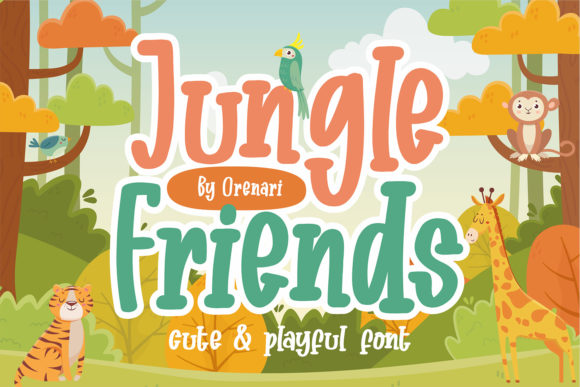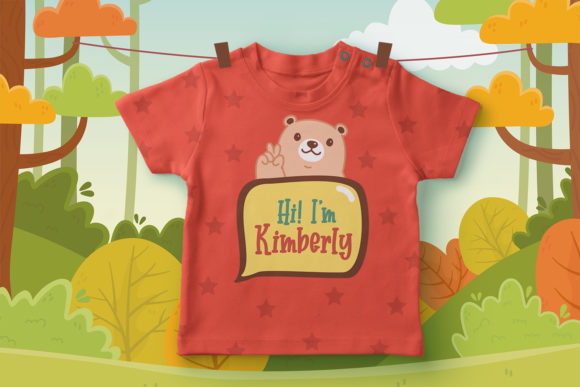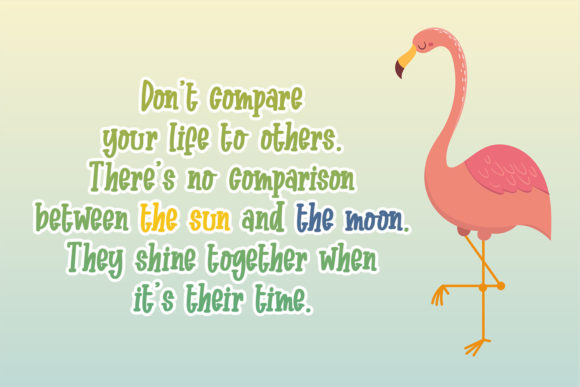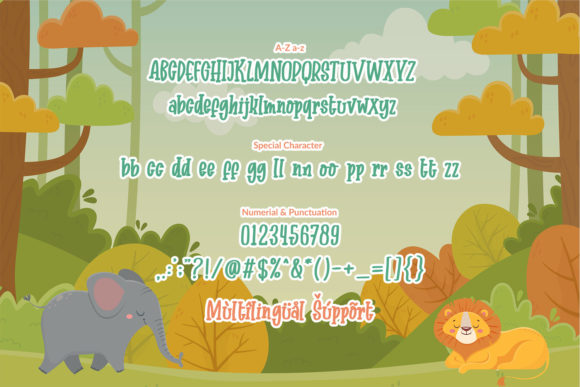
Jungle Friends Font: A Cute Display Font for Cricut & Playful DIY Designs
About the Jungle Friends Font
The Jungle Friends Font offers a perfect balance of form and function for your design needs. Jungle Friends is a cute and friendly display font. Its friendly feel makes this font incredibly versatile, fitting a wide range of design and craft concepts. Add it to your creative ideas and notice how it makes them stand out!
Jungle Friends excels in display applications such as logos, headlines, and short-form text on posters or packaging. Its playful nature makes it ideal for children’s products, branding for playful businesses, and projects requiring a friendly, approachable aesthetic. However, its decorative forms make it unsuitable for body copy or UI elements where readability is paramount. Long blocks of text set in Jungle Friends will be difficult to read.
Consider pairing Jungle Friends with a clean sans-serif like Open Sans for body text to balance its playful energy, or a classic serif like Garamond for a sophisticated contrast. For a more playful pairing, a rounded geometric sans-serif like Lato could be used.
The font’s overall personality is undeniably cheerful and approachable, conveying a sense of fun and approachability. This makes it a strong choice for brands that wish to project friendliness and playfulness.
Jungle Friends Font Usage Examples
Jungle Friends Font Example